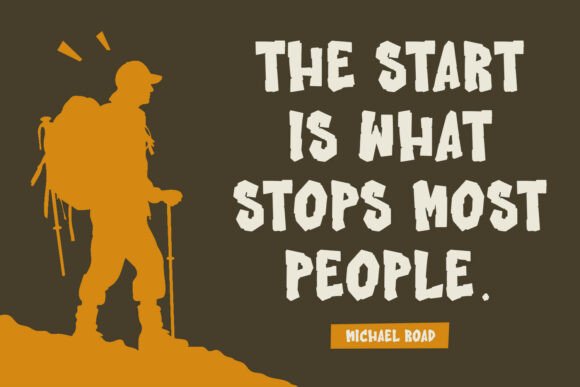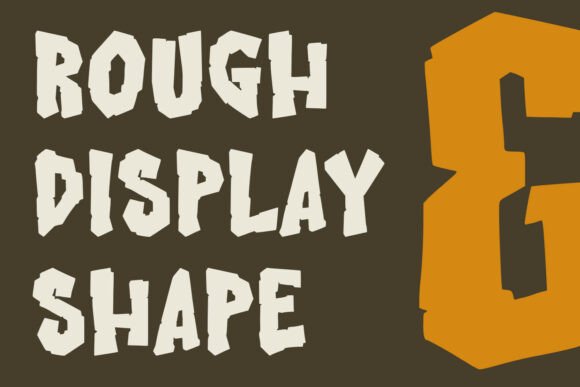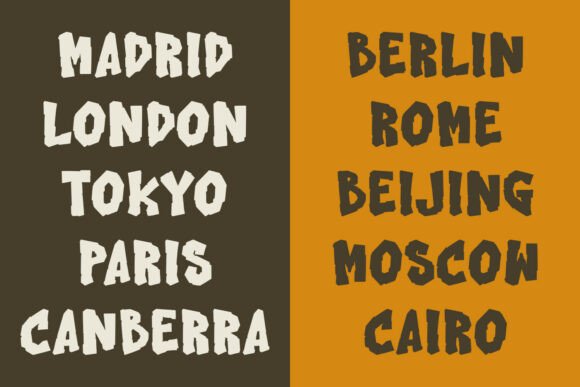
Introduction to Janggro Font
Janggro is a unique and interesting display font.
A little bit quirky, this font looks incredibly adept on a wide variety of contexts .
Key Features of Janggro Font
Why Choose Janggro Font?
Janggro Font offers exceptional quality and versatility, making it a valuable addition to your design toolkit. Whether you’re creating for personal projects or commercial use, Janggro Font delivers professional results.